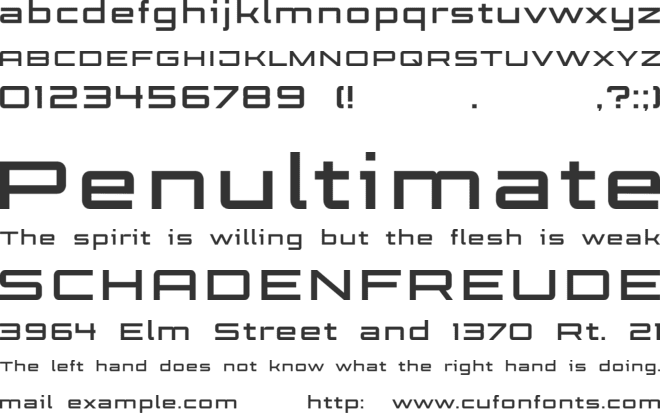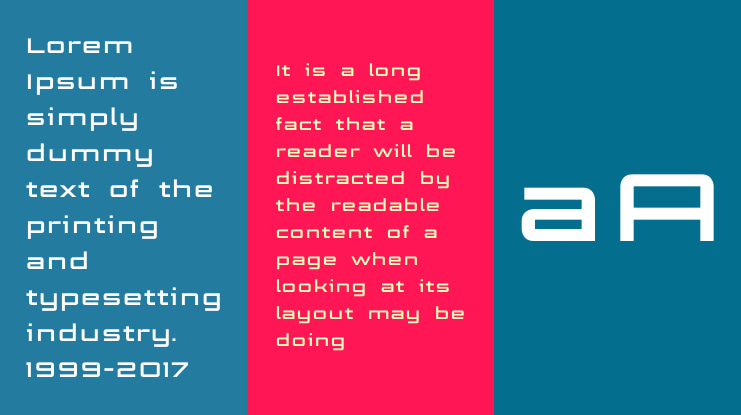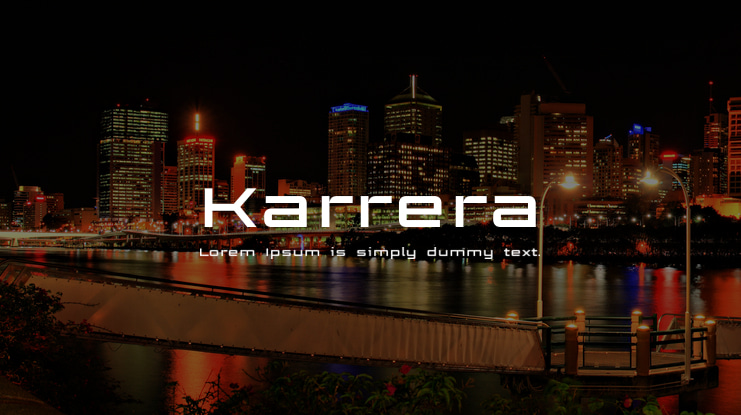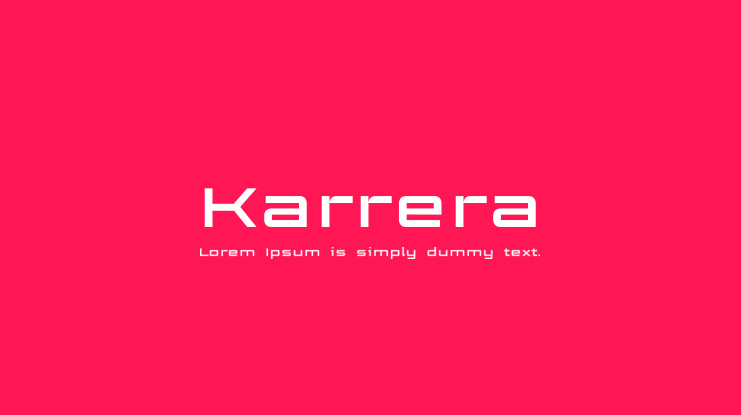
Karrera Font
This is my first attempt to create a working font. It is inspired by the logo of the well known automobile manufacturer Porsche. Feel free to use it.